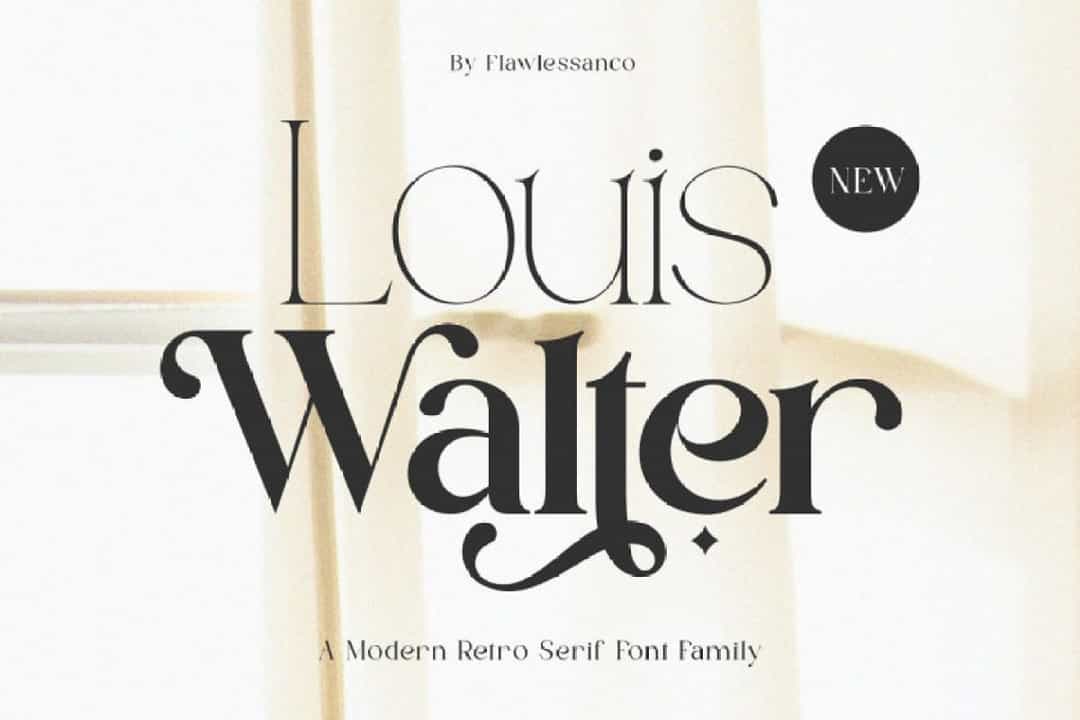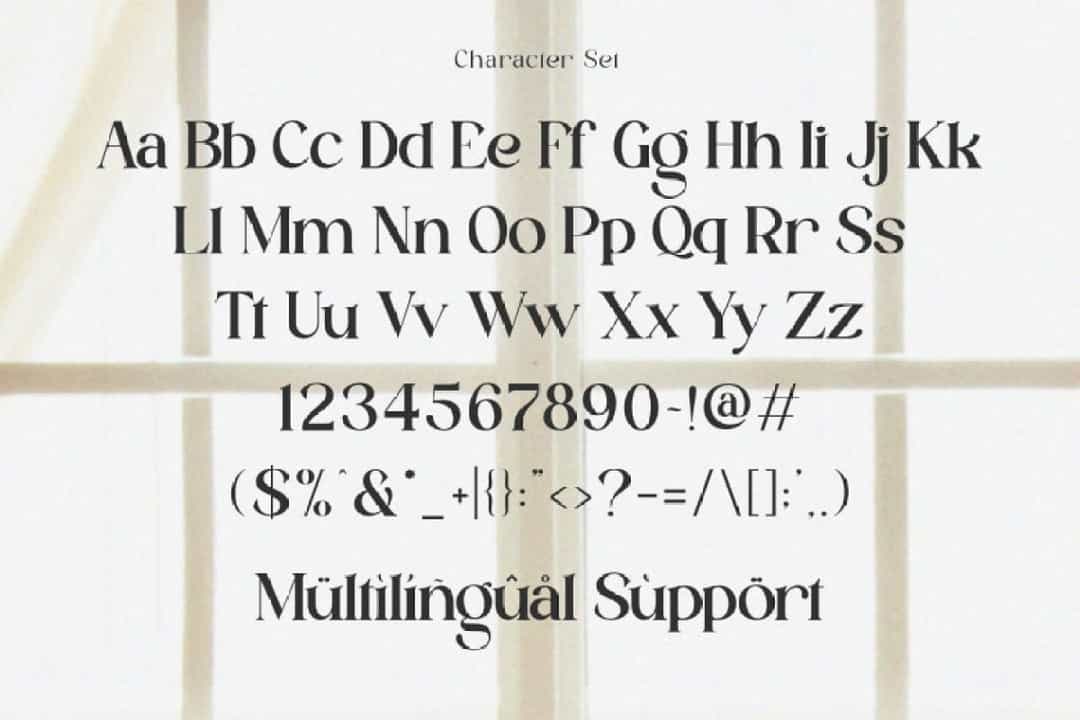
Challenge yourself with the “Louis Walter,” a modern retro serif font family that finds inspiration in the forte of typography history but with a rejuvenated inspiration. Ideal for branding purposes, editorial, wedding and invitations, branding and logo design, magazines, t-shirts, print and many more, Louis Walter is a design option that encompasses style and versatility in every letter.